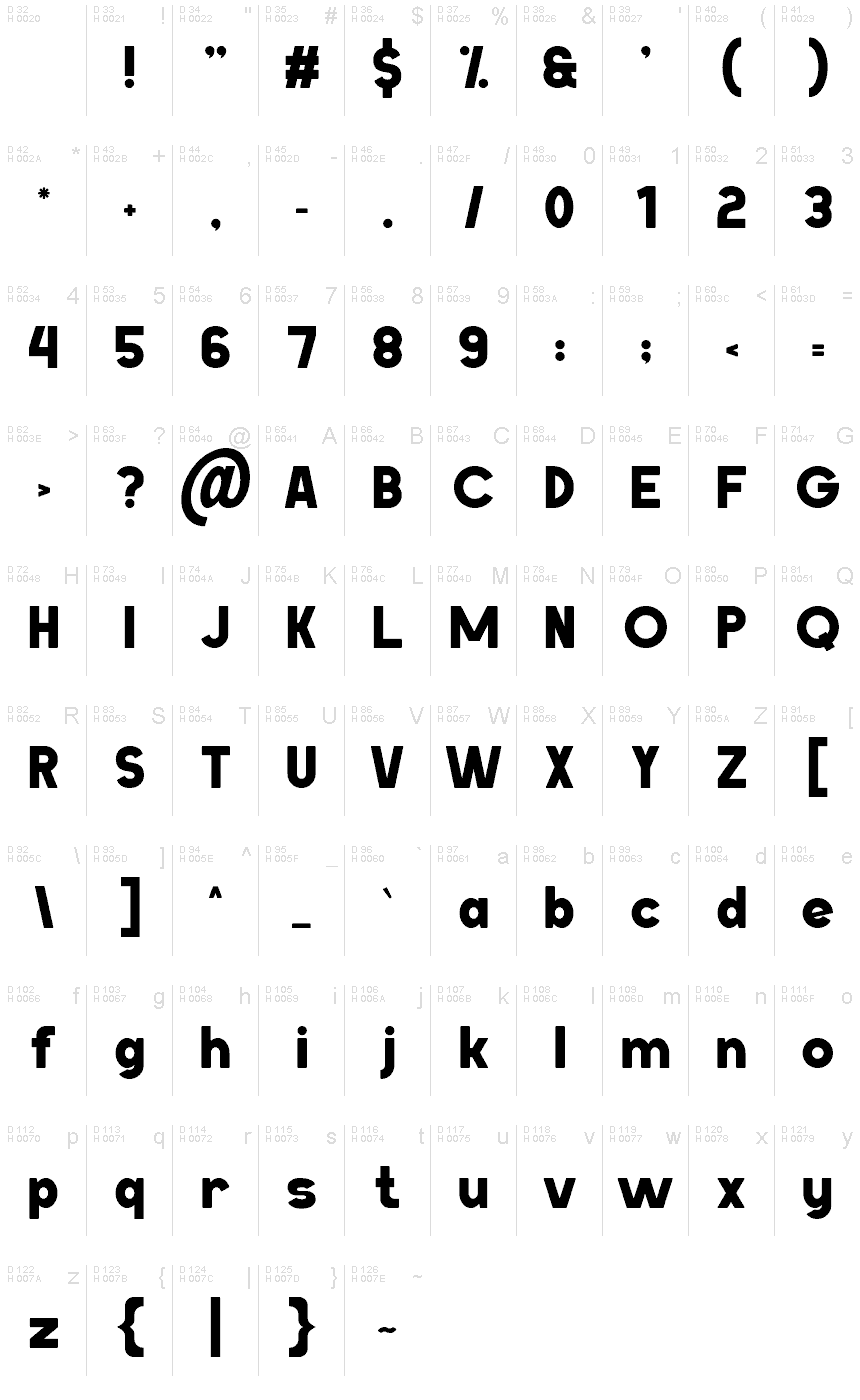
EQUALI
\nEquali font is a bold modernist sans serif typeface with a geometric structure built from clean lines and robust shapes. Designed by Gilang Ternadho, the font’s letters are starkly contrasted with curved sides and flat equal ends as inferred by Equali’s name. The rounded sides are soft, friendly, and fun while the combination of structure renders it readable.
Equali free font is designed to be used within headlines that vary in size for branding designs or packaging projects such as coffee shops or bars’ brands. And it would look even better on typography posters, web and app pages, icons designs, social media images or banners, brochures and menu covers.